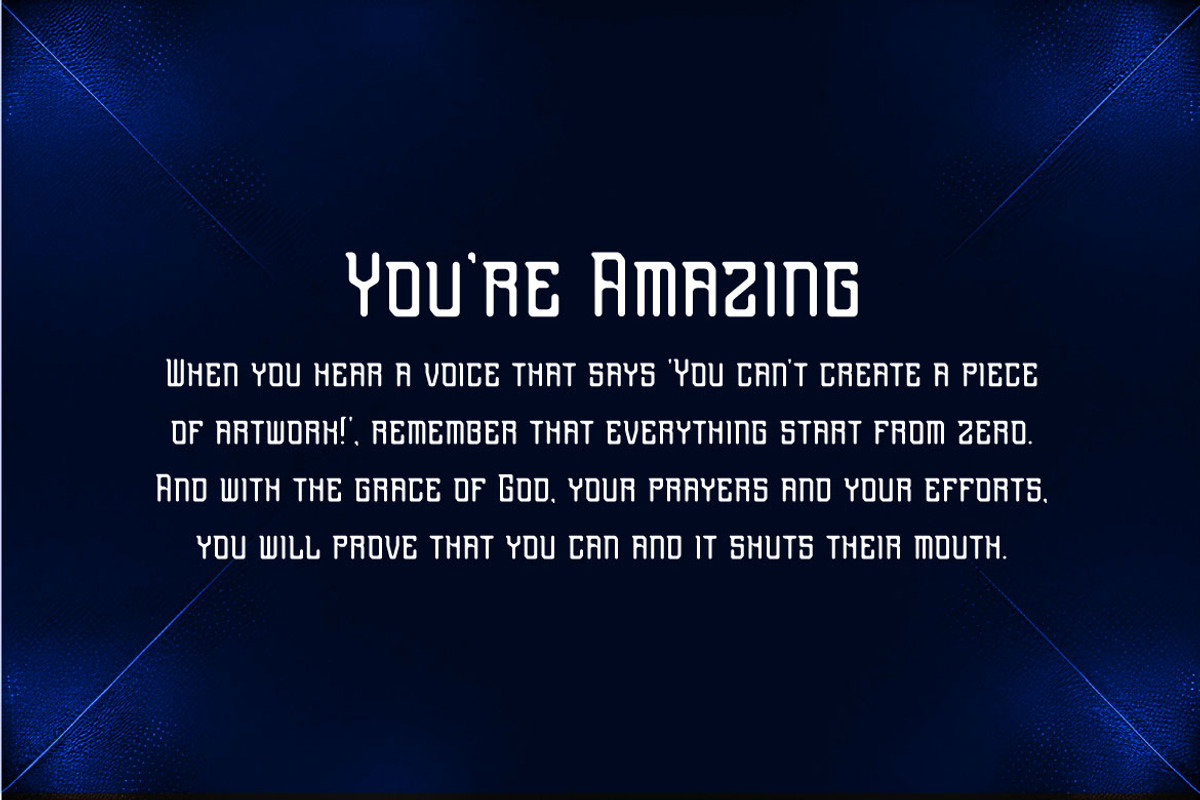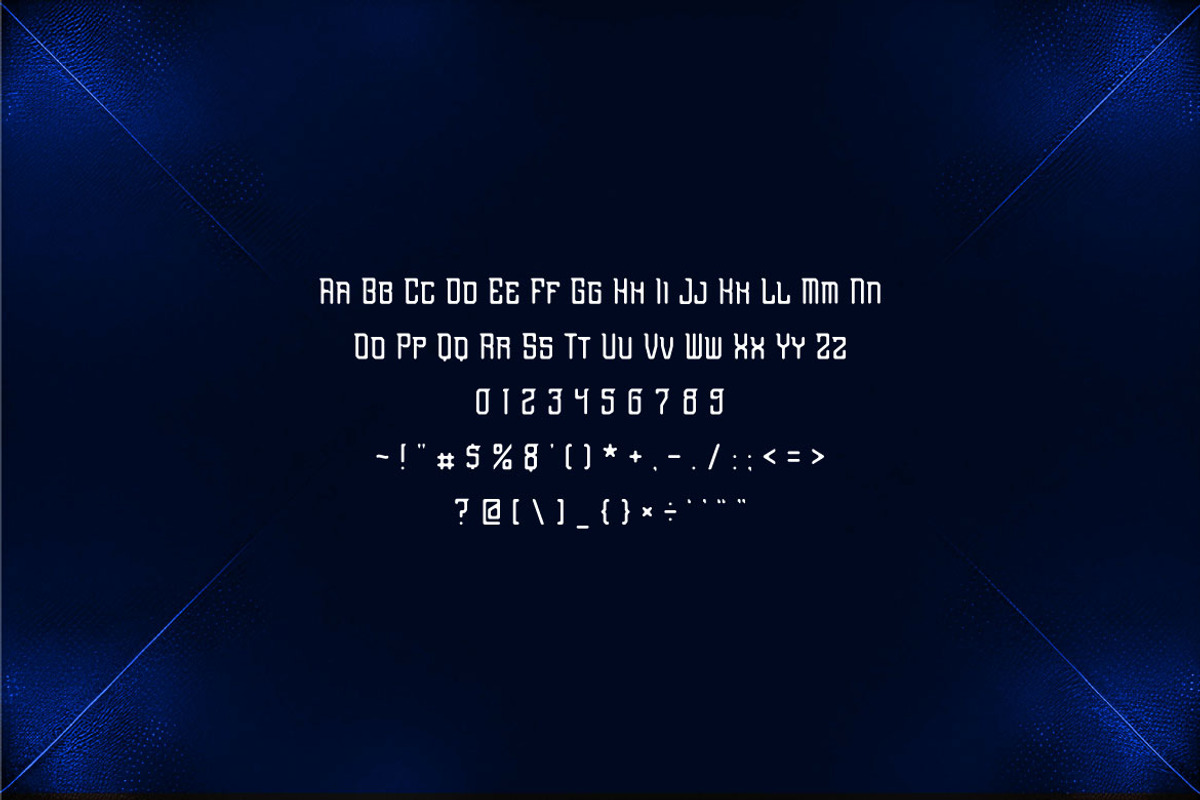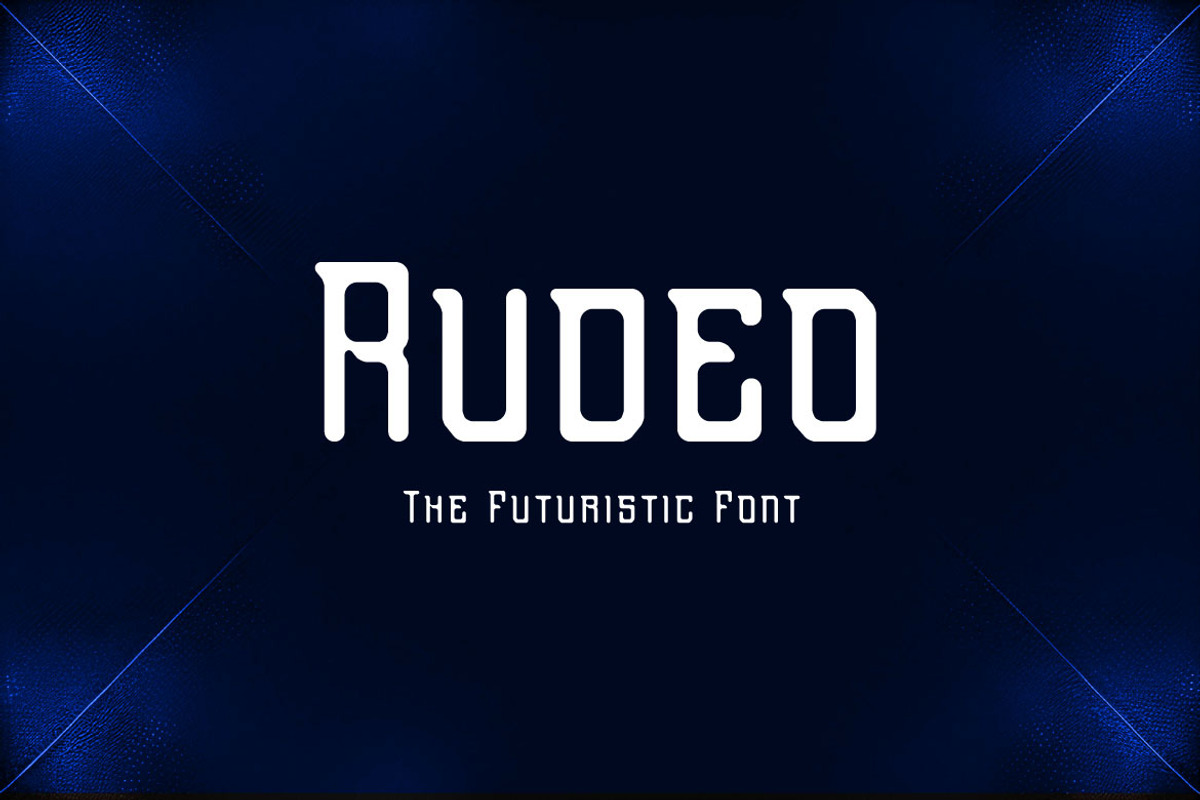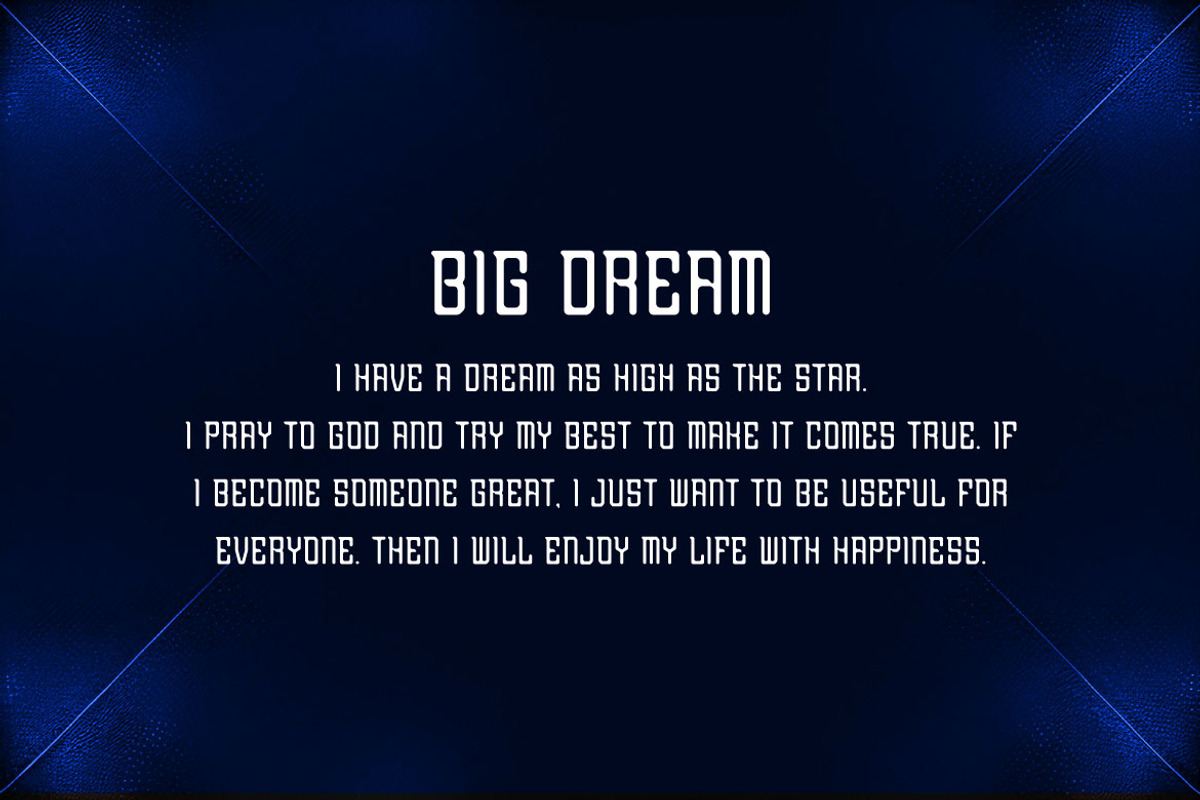
Rudeo - Futuristic Modern Font
Hello! Rudeo is a futuristic modern font. Rudeo can be used in any works such as comic book, poster, school, flyer, book title, advertisement, social media content, logo and many more.